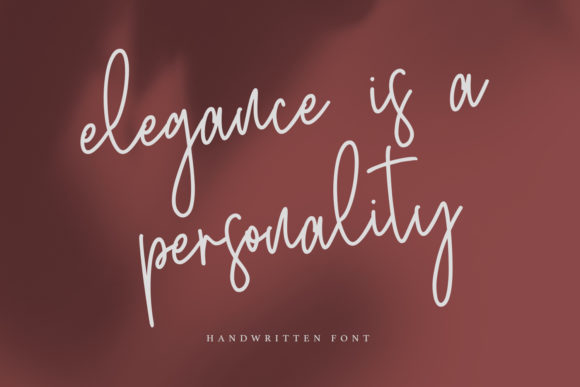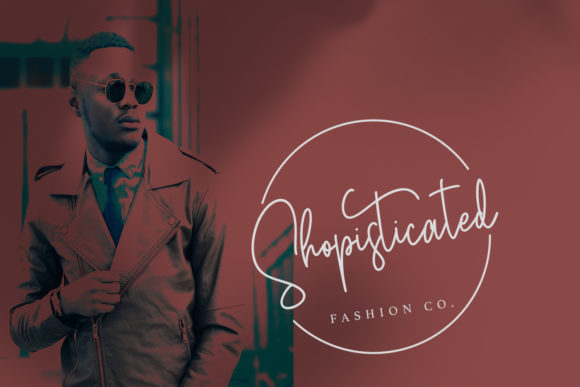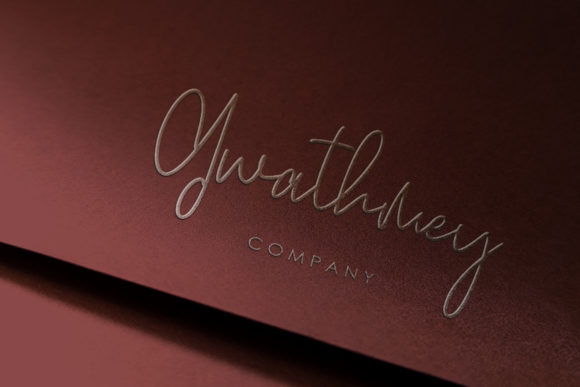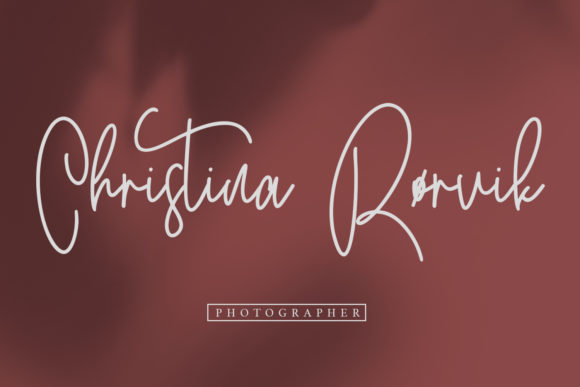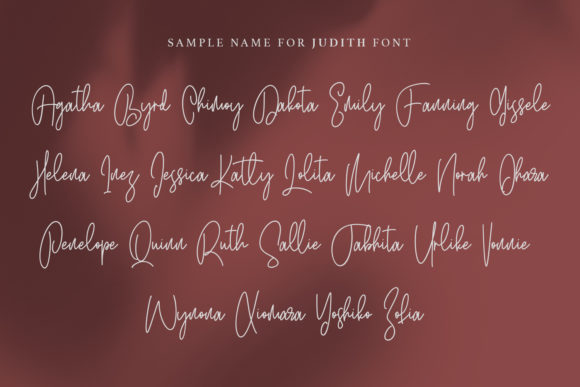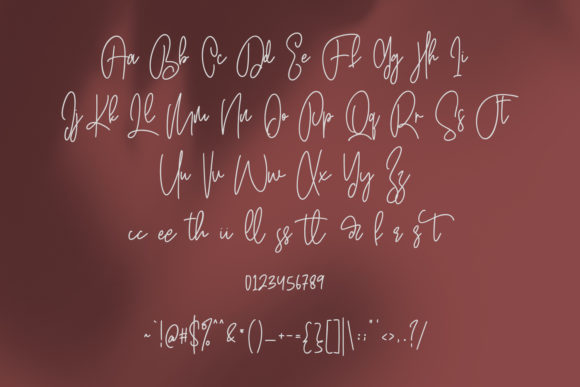
Judith Font
About Judith Font
Judith sounds like a beautiful and sophisticated handwritten font that can elevate various design projects with its elegant and contemporary touch. Its combination of calligraphic influences and modern flair makes it a versatile choice for a wide range of applications. Here are some creative ideas on how to use Judith font to create stunning designs:
1. Wedding Invitations: Design luxurious and romantic wedding invitations with Judith font, infusing them with a timeless and elegant feel.
2. Thank You Cards: Customize thank you cards with Judith font to add a touch of class and gratitude in expressing appreciation.
3. Quotes and Greeting Cards: Create stunning quote art and greeting cards using Judith font, combining heartfelt messages with an elegant presentation.
4. Logo Design: Utilize Judith font in logo designs for businesses seeking a refined and stylish brand identity, such as high-end fashion boutiques or upscale hotels.
5. Business Cards: Design sophisticated and eye-catching business cards with Judith font to leave a lasting impression on potential clients and customers.
6. Social Media Graphics: Use Judith font in social media graphics to add a sense of elegance and sophistication to your online presence.
7. Blog Headers: Incorporate Judith font into blog headers and titles to create a polished and chic look for your blog posts.
8. Product Packaging: Customize product packaging with Judith font, particularly for artisanal or luxury products, to enhance their visual appeal.
9. Personal Stationery: Design personalized stationery items, like notecards or letterheads, with Judith font for a touch of refined elegance.
10. Book Covers: Use Judith font in book covers to create a captivating and elegant design for novels or inspirational books.
11. Art Prints: Create art prints featuring Judith font for home decor or to sell in art galleries, showcasing the beauty of calligraphy and hand lettering.
12. Event Invitations: Design sophisticated invitations for special events, such as galas or formal parties, using Judith font for a refined and upscale appearance.
13. Digital Branding: Incorporate Judith font in digital branding materials, such as email signatures and website banners, to establish a consistent and elegant brand identity.
14. Magazine Headings: Utilize Judith font in magazine headings and titles to add a touch of elegance and sophistication to editorial layouts.
15. Packaging Labels: Customize product labels or tags with Judith font for a luxurious and high-end look on retail items.
16. Fine Dining Menus: Design elegant menus for fine dining restaurants, featuring Judith font to enhance the dining experience with a sense of refinement.
17. Luxury Branding: Use Judith font in branding materials for luxury brands, conveying a sense of sophistication and exclusivity.
18. Interior Decor: Create custom art or posters with Judith font to decorate interior spaces with an elegant and artistic touch.
19. Wedding Stationery Suite: Design a cohesive wedding stationery suite, including save-the-date cards, RSVP cards, and more, with Judith font for a unified and elegant presentation.
20. Artistic Quotes: Create digital art featuring artistic quotes and phrases using Judith font to add an element of beauty and creativity.
In conclusion, Judith is an exquisite handwritten font that effortlessly blends timeless calligraphic influences with contemporary elegance. Whether you’re designing wedding invitations, branding materials, or social media graphics, Judith font is sure to impress and elevate your projects to the highest levels with its refined charm.